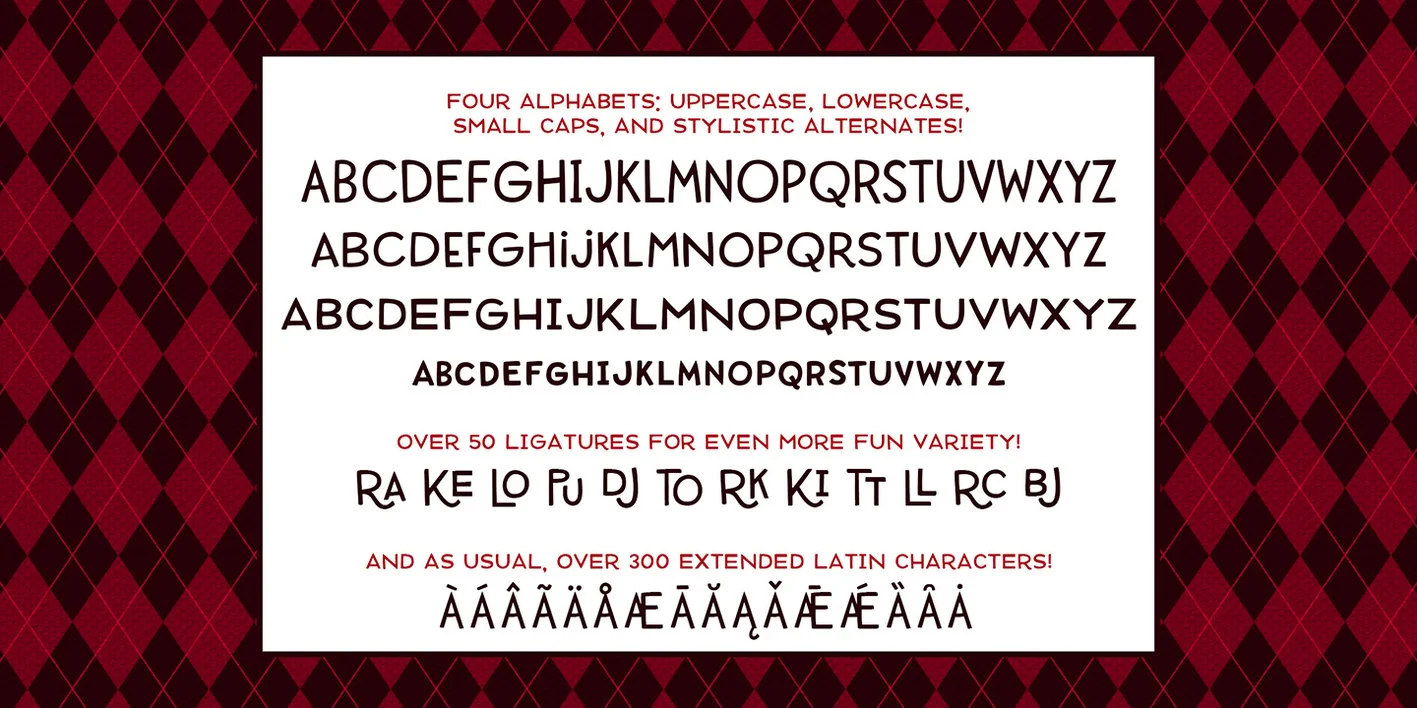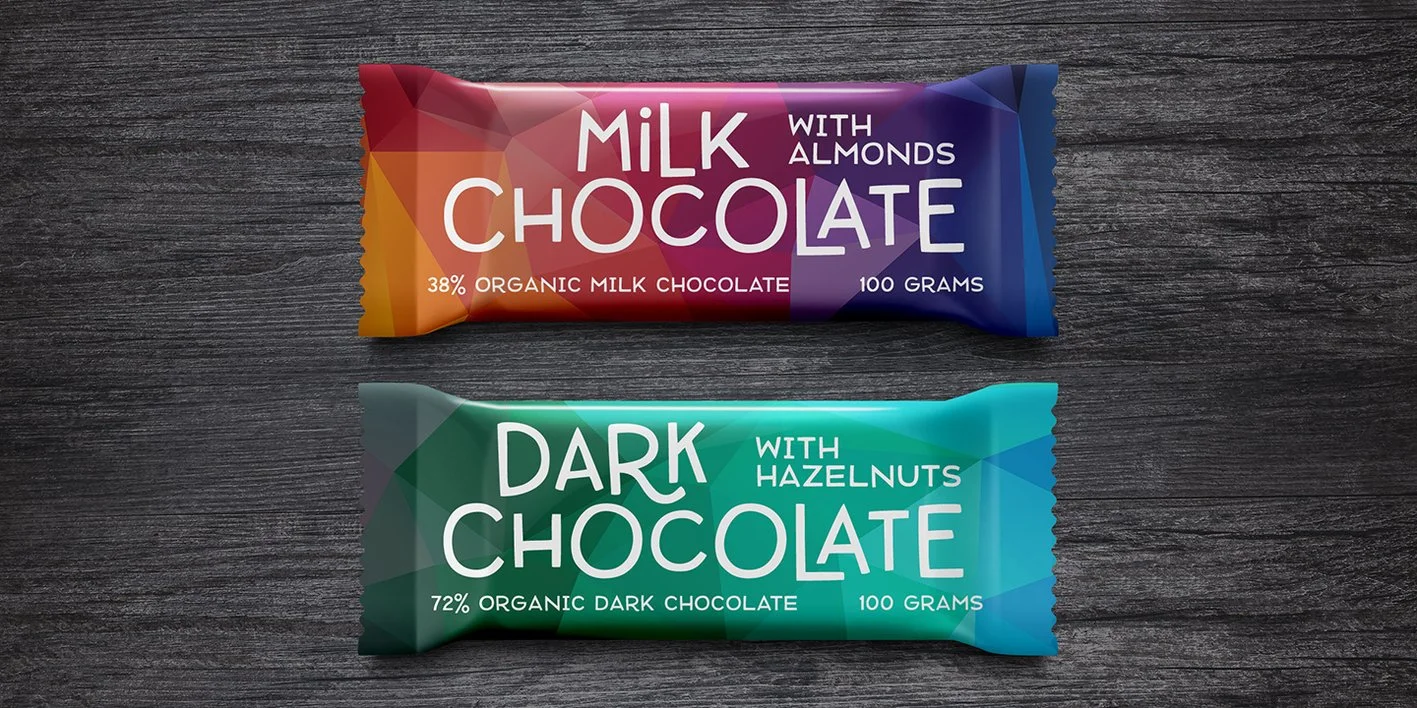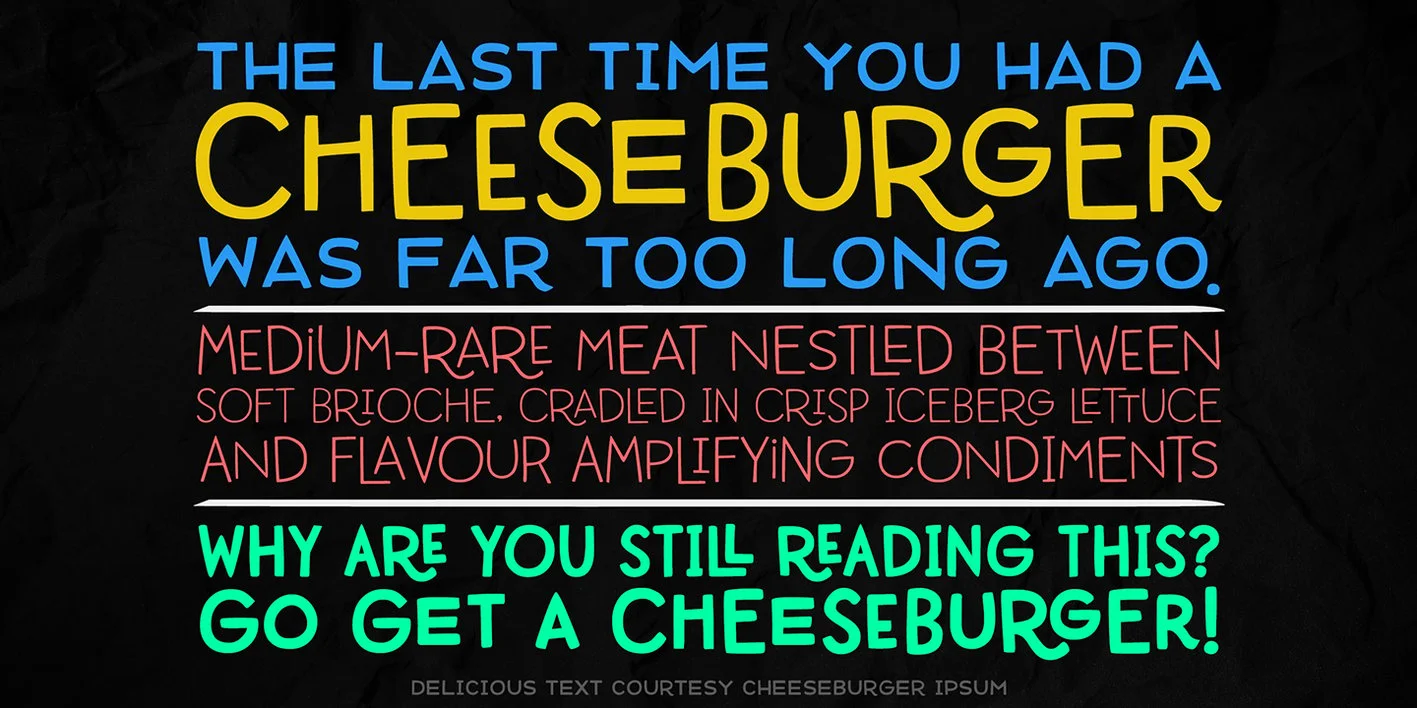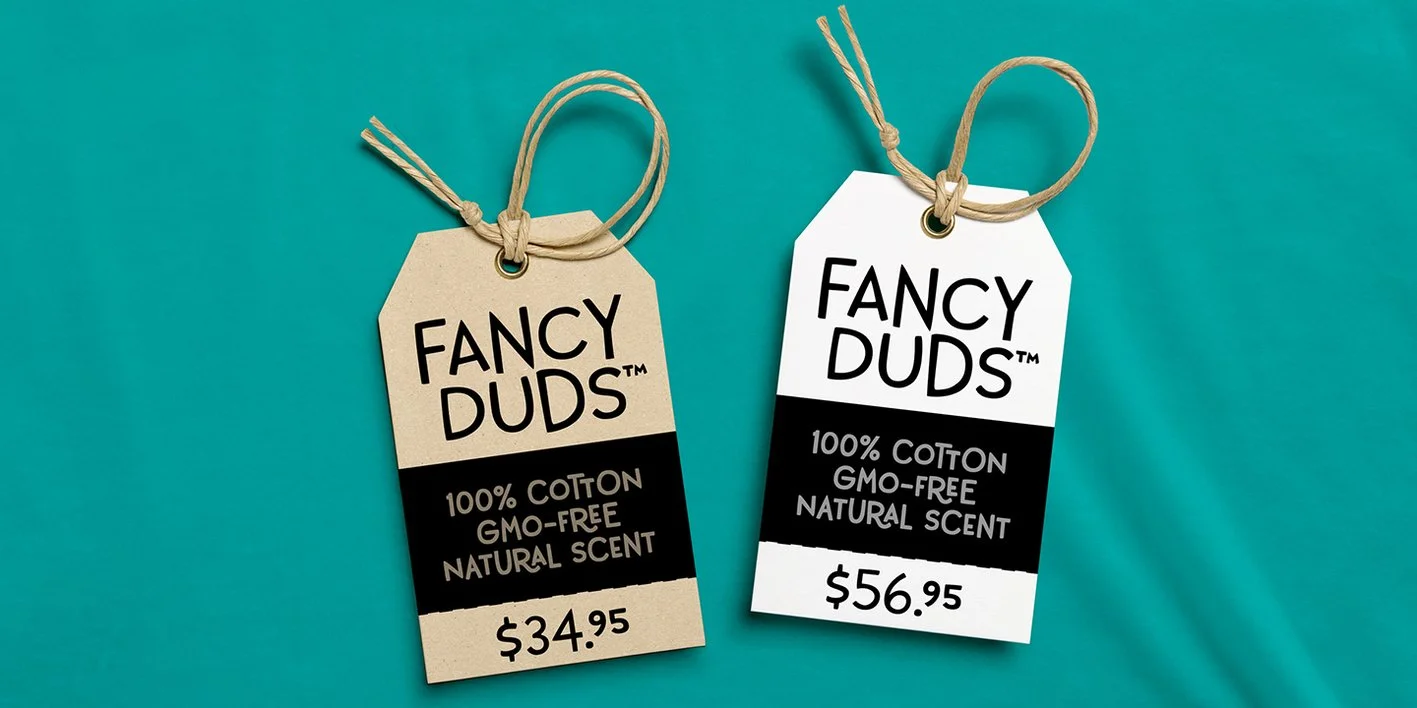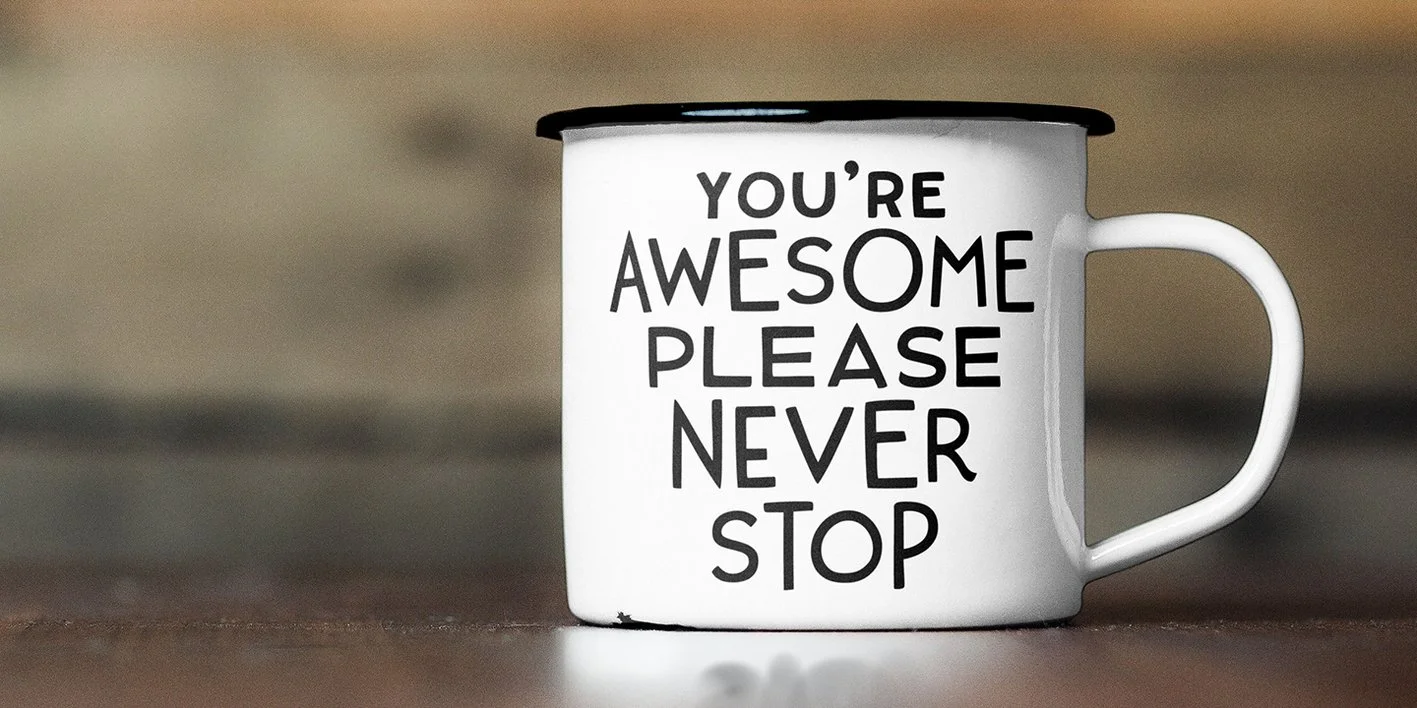
Argyle Socks Font
A good typeface communicates tone before a single word is read. Argyle Socks achieves this through refined proportions and careful stroke modulation. The typeface brings a versatile sensibility to a broad range of creative disciplines, with the kind of restraint that lets content lead that holds up whether the work is print-first or screen-first.
In practice, Argyle Socks proves particularly effective for advertising campaigns, editorial layouts, brand identity systems, poster creation, social media graphics. Designers reaching for it find that the type decisions feel resolved rather than laboured — a useful quality when client timelines are tight.
The range of applications extends to logo design, packaging design, annual reports, product labels. That breadth is deliberate: the proportions and spacing were stress-tested across a wide range of mock briefs before the typeface was finalised.
Argyle Socks sits comfortably alongside both classic and contemporary typefaces in multi-font hierarchies. It takes direction rather than competing for attention — a quality that experienced designers know is harder to find than it appears.
Art directors commissioning type-led campaigns find Argyle Socks a reliable choice for projects that demand both personality and restraint. The design avoids the self-conscious quirkiness that dates quickly, settling instead for considered distinctiveness that holds up over time.